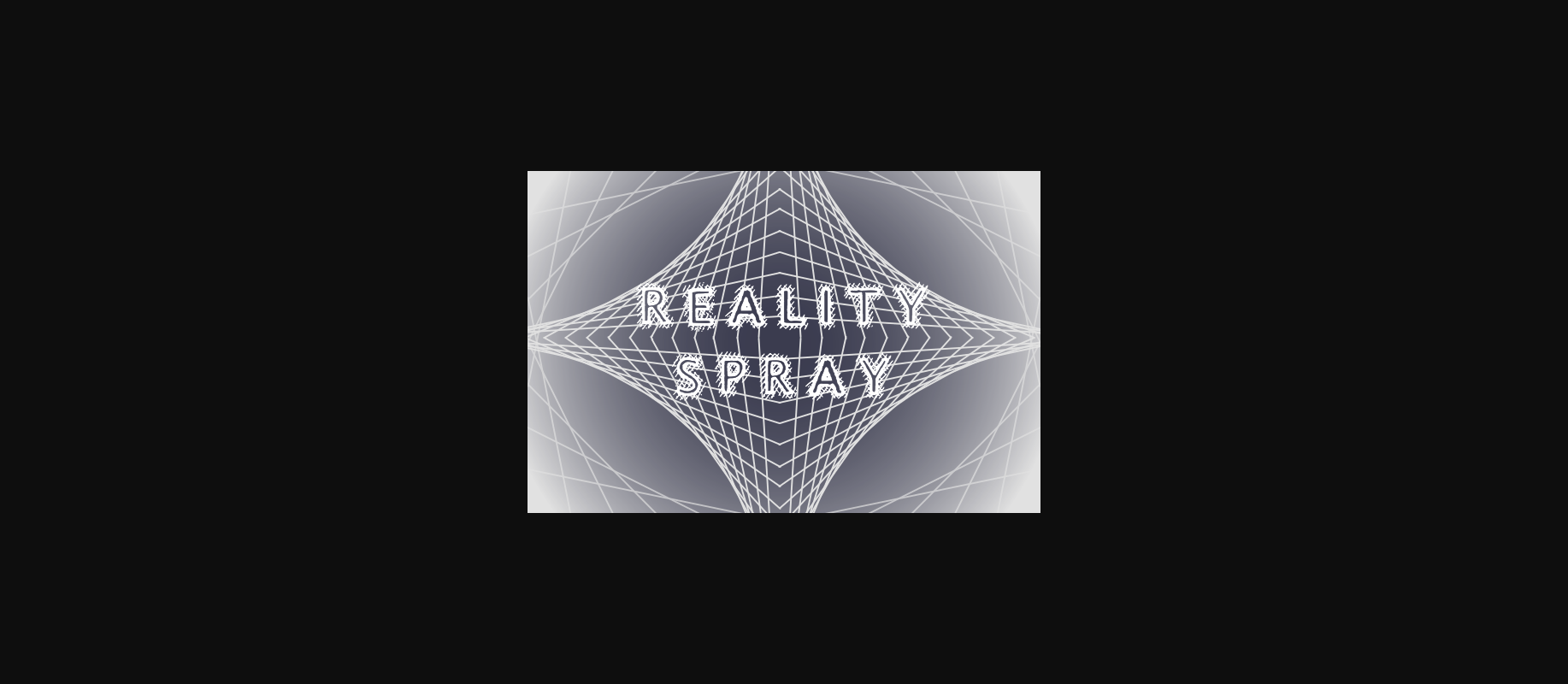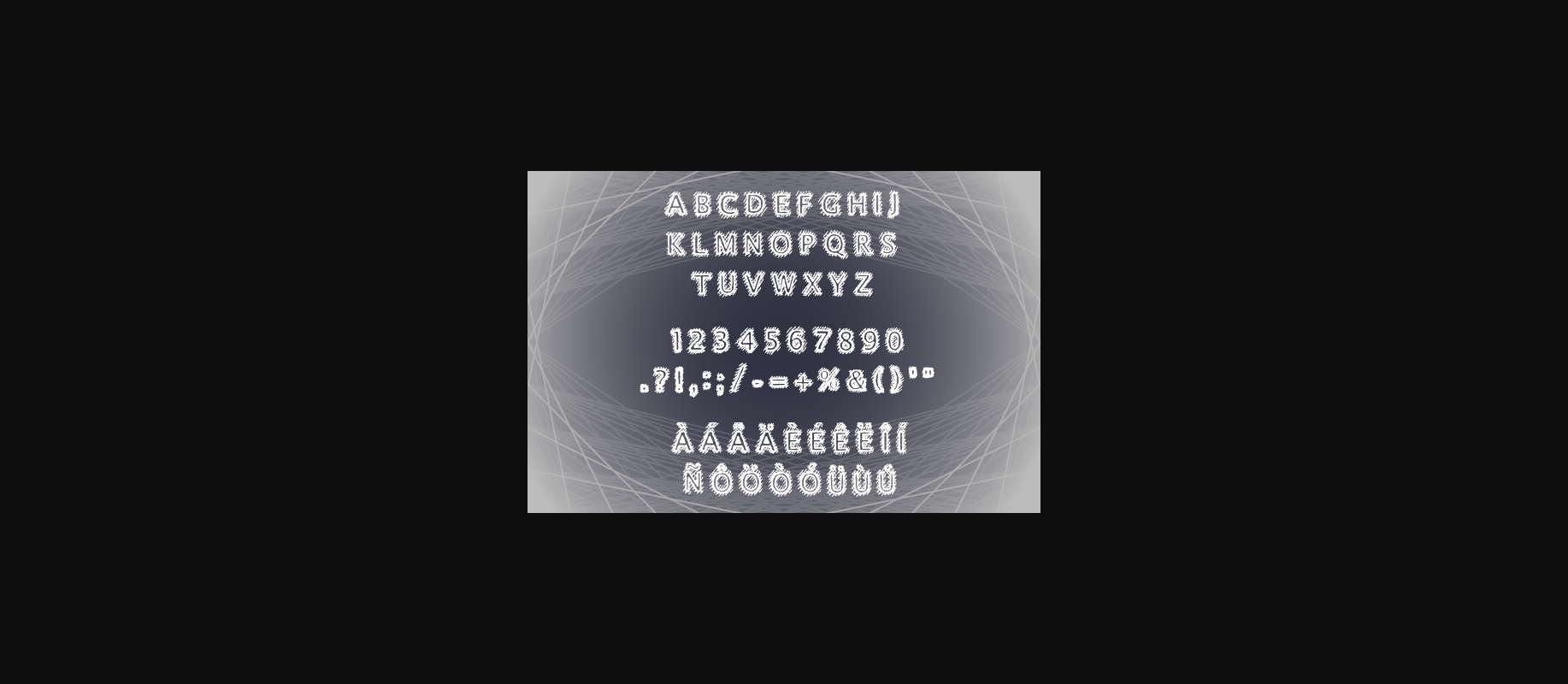
HomeDecorative FontsReality Spray Font Decorative Fonts Reality Spray Font FacebookXPinterestWhatsApp 1 of 2 About Reality Spray Font A semi-transparent typeface based on Lucida Sans. DOWNLOAD NOW People also explored Bright Future Font Attention Font Mayisha Font Reinata Font Morning Story Font Ageritta Font Rostage Font Shelly High Font 268 0 TagsReality Spray Font Previous articleStitch Rounded FontNext articleSlanted Box Stencil Font LEAVE A REPLY Cancel reply Comment: Please enter your comment! Name:* Please enter your name here Email:* You have entered an incorrect email address! Please enter your email address here Website: Save my name, email, and website in this browser for the next time I comment. Personal Use Free Panaroe Personal Use Free Read more about this font Ailand Personal Use Free Read more about this font Splatter Splash Personal Use Free Read more about this font Zero Hour Personal Use Free Read more about this font BLOG Best Fonts for T-Shirt Design – Top 2025 Picks In 2025, t-shirt design has become more than just fashion—it's a form of self-expression. Whether you're... Free Fonts Risk: Why Free Fonts Can Be Dangerous for Designers To increase your work productivity, choose the most readable fonts. Using Fonts in Digital Marketing: Tips to Strengthen Your Brand Identity